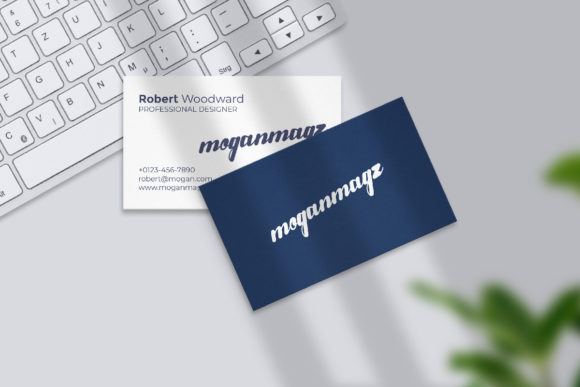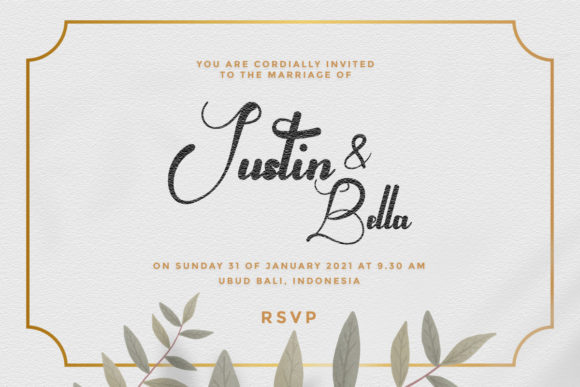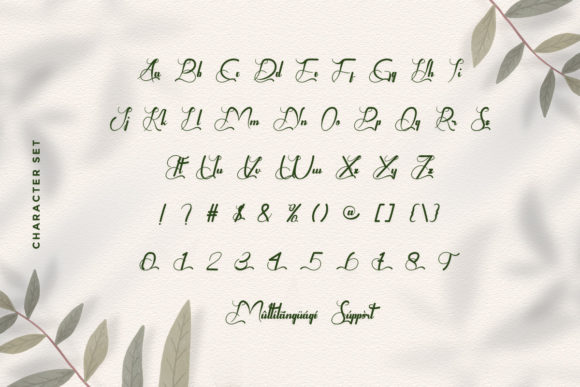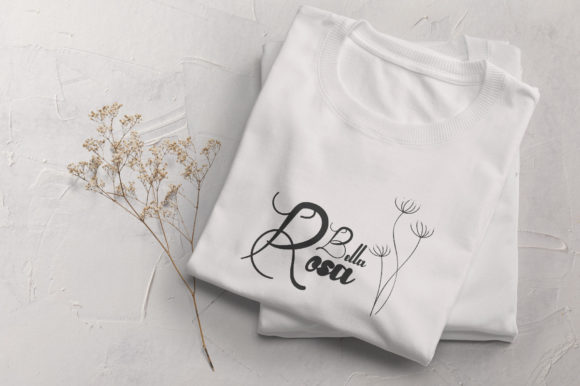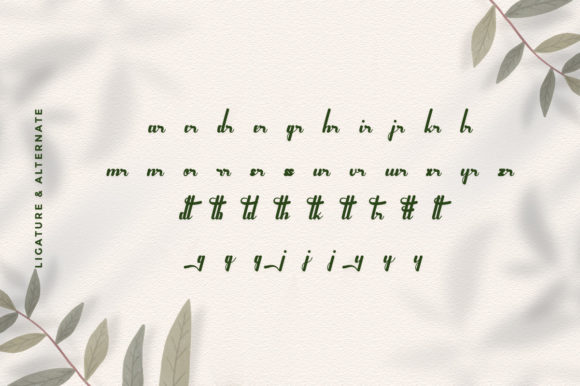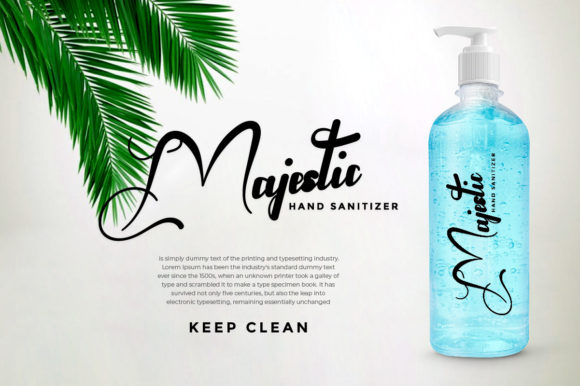
The Arrival of Elegance: A Deep Dive into the Arrival Font
I’ll never forget the time I was working on a luxury branding project, and my client asked for a font that exuded sophistication and elegance. I scoured the internet, tried countless fonts, but nothing seemed to fit the bill. That was until I stumbled upon the Arrival Font. ✨ It was love at first sight! The refined script font won my heart with its stylish alternates and ligatures, making it the perfect match for my project. In this article, I’ll share my experience with the Arrival Font, its features, and how to make the most of it in various design platforms.
- ✅ PUA Encoding: The Arrival Font is PUA encoded, making it easy to access all the glyphs and swashes.
- ✅ Stylish Alternates and Ligatures: The font comes with a range of stylish alternates and ligatures, perfect for adding a touch of elegance to your designs.
- ✅ Well-Balanced and Refined: The font is well-balanced and refined, making it suitable for a wide range of projects, from luxury branding to wedding invitations.
While the Arrival Font is an excellent choice, there are a few things to keep in mind ⚠️:
- 🤔 Limited Use in Body Text: Due to its script nature, the Arrival Font may not be the best choice for body text, especially for longer paragraphs.
- 🤔 Requires OpenType Support: To access the font’s advanced features, such as ligatures and stylistic alternates, you’ll need to use a design platform that supports OpenType.
If you love the Arrival Font, you may also want to consider these similar fonts:
- Lorina: A elegant script font with a similar feel to Arrival. Use Lorina for projects that require a more feminine touch.
- Bramble: A luxurious script font with a slightly more rustic feel. Use Bramble for projects that require a sense of warmth and coziness.
- Adorn: A refined script font with a more modern feel. Use Adorn for projects that require a touch of sophistication and glamour.
- Rebecca: A elegant script font with a classic feel. Use Rebecca for projects that require a sense of tradition and heritage.
The Arrival Font was designed with inspiration from classic luxury brands and high-end fashion labels. The font’s creator aimed to craft a script font that exuded elegance and sophistication, perfect for branding and advertising projects. 💃 While we can’t know the exact story behind the font’s creation, it’s clear that the designer was successful in creating a truly stunning font.
Q: What is PUA encoding, and how does it benefit the Arrival Font?
A: PUA (Private Use Area) encoding allows designers to access a font’s advanced features, such as glyphs and swashes, using a keyboard shortcut or design software. This makes it easier to use the Arrival Font’s features and create stunning designs.
Q: Is the Arrival Font suitable for body text?
A: While the Arrival Font is an excellent choice for headings and titles, it may not be the best choice for body text due to its script nature. Consider using a sans-serif or serif font for longer paragraphs.